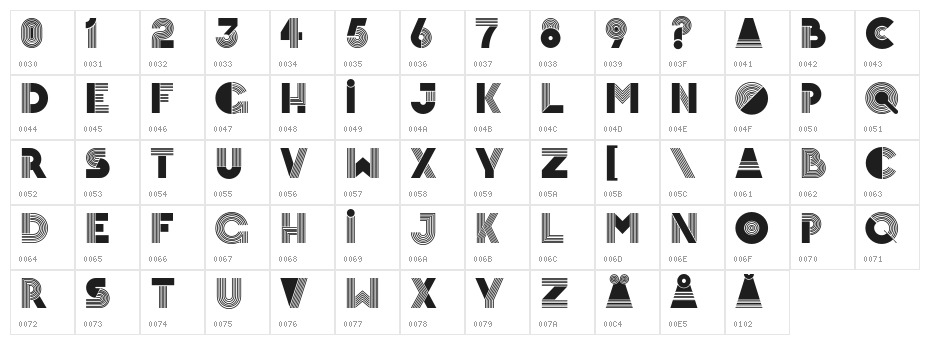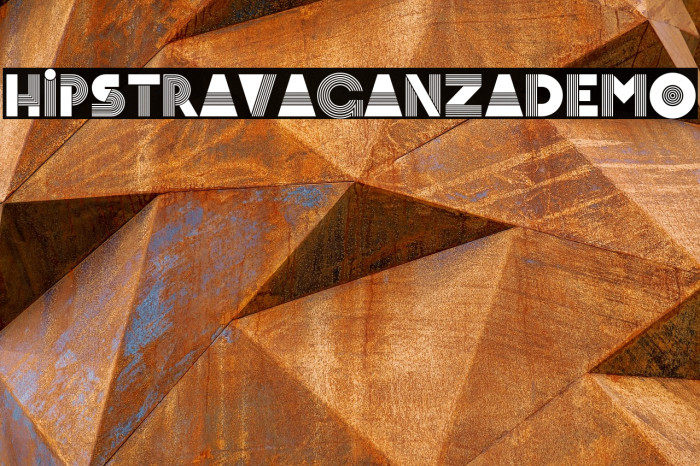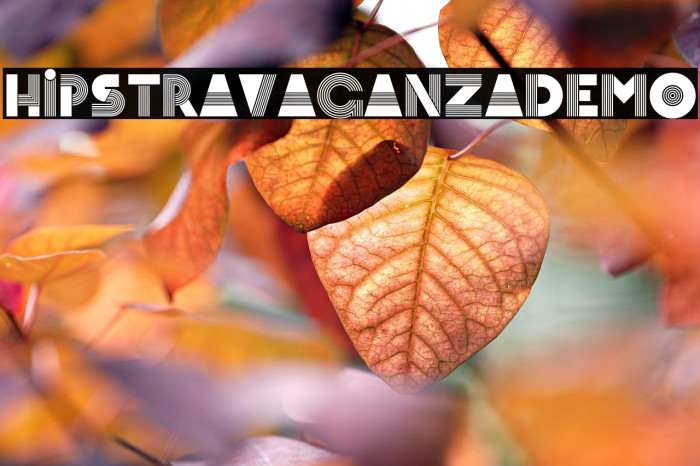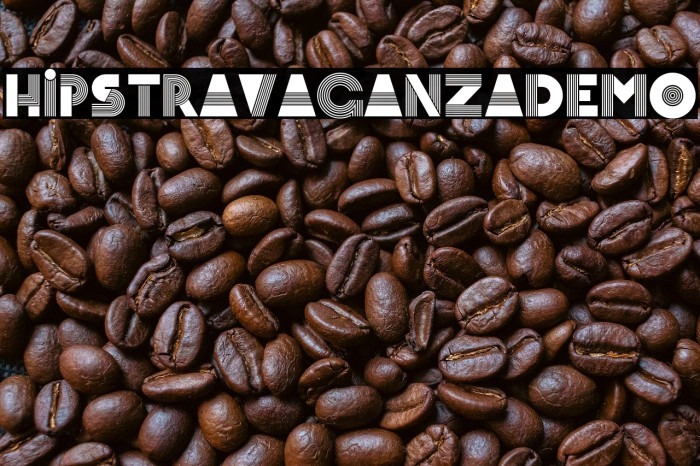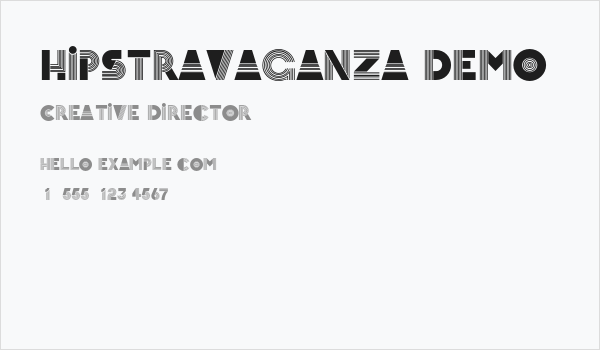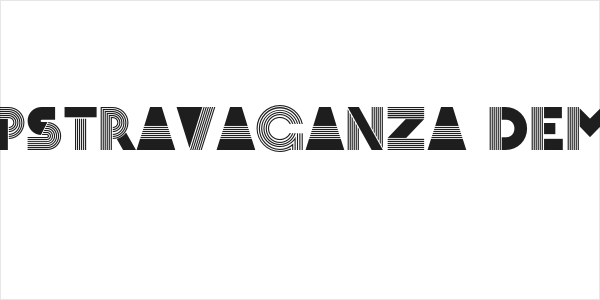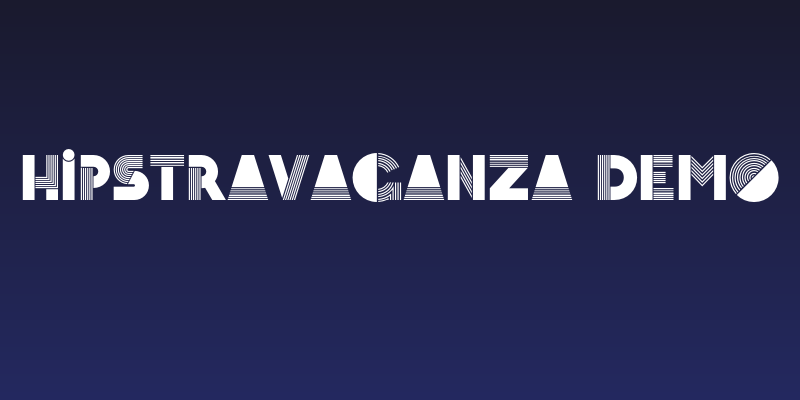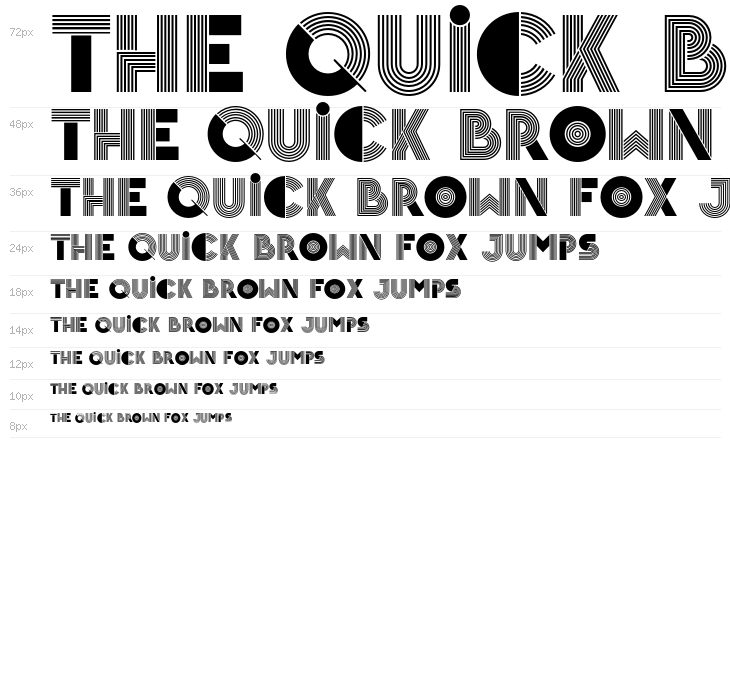
Hipstravaganza-Demo Font
Hipstravaganza-Demo Description
This font features a bold and striking design with a unique combination of solid and striped patterns within each character. The uppercase letters are particularly eye-catching, with a mix of thick and thin lines that create a dynamic visual effect. The numbers and special characters follow the same pattern, ensuring consistency throughout. The overall appearance is modern and artistic, making it suitable for projects that require a strong visual impact. The font's geometric shapes and bold lines make it ideal for headlines, posters, and branding materials where attention-grabbing typography is essential.
| Use Case | Headlines, Posters, Branding |
| Proposed Projects | Ideal for posters, branding, headlines, and any project needing a bold, artistic touch. |